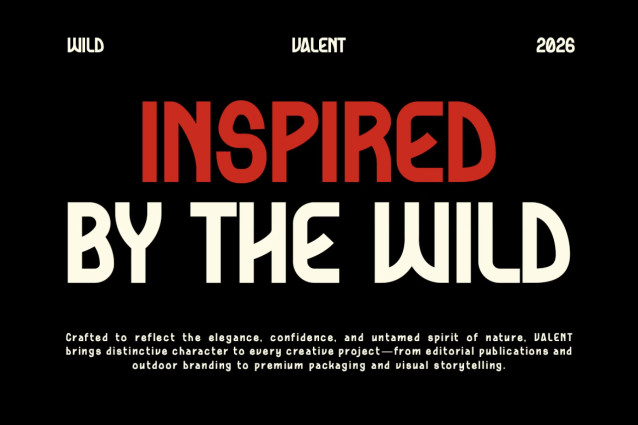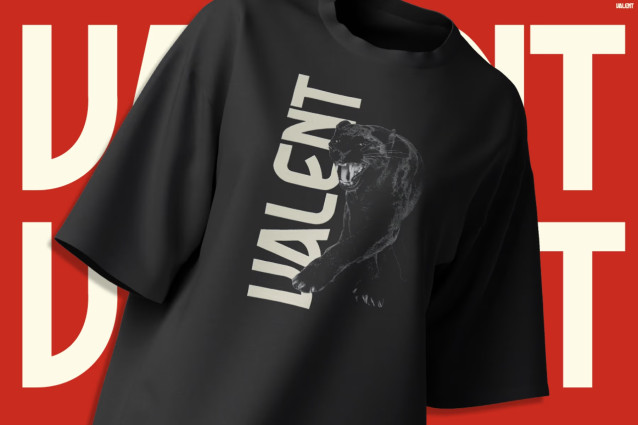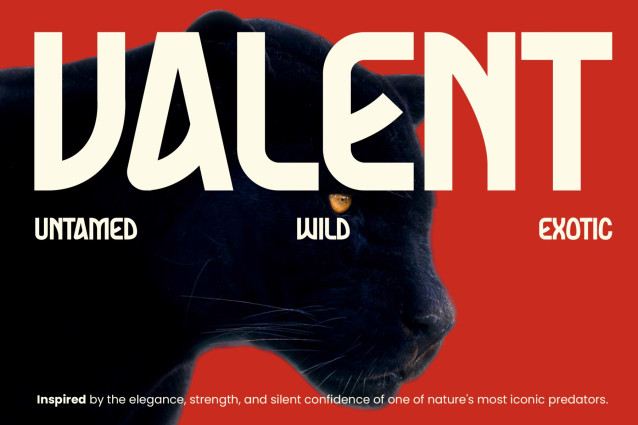
Valent Font
Modern Font Valent channels the fearless instinct of the wild into a striking display typeface that refuses to be overlooked. From the very first letter, its bold silhouettes and organic cuts create an intense visual rhythm inspired by nature’s strongest predators. Moreover, the handcrafted details add a raw personality that feels both powerful and authentic.
As a result, every headline delivers confidence, authority, and unmistakable character. At the same time, the balanced construction keeps each word crisp and readable. Furthermore, Valent combines primal energy with modern precision, making it a standout choice for brands that want to lead instead of follow.